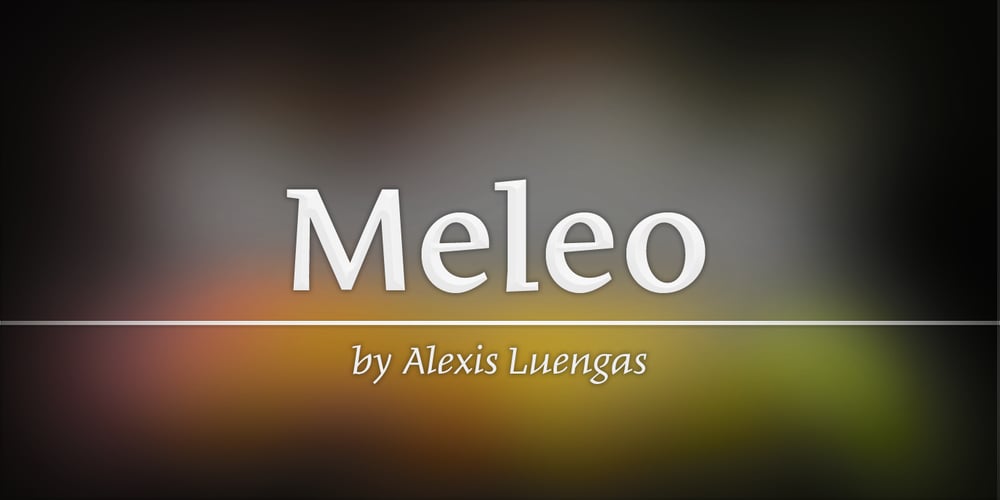
Meleo Font Family was designed by published by Alexis Luengas. Meleo contains 10 styles and family package options. Meleo is a semiserif consisting of 10 fonts with a few original quirks but still very legible at both text and display sizes. Since its conception, the aim was a balance of uniqueness and functionality. The typeface owes its energy to the slight suggestion of calligraphic crafting and humanist structure. But it also breaks the rules: a small x-height and a whimsical uppercase with resemblance to the lowercase may render Meleo more friendly than a conventional (semi-)serif. Titles and texts of moderate length, like those found on websites, flyers and packaging, are the natural habitat of Meleo, but it may as well thrive under different settings. Meleo supports most of western-european latin languages which are included in the ISO-Adobe character set.